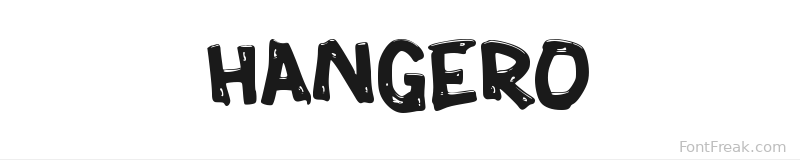
HANGERO
HANGERO by Wahyu Eka Prasetya is a striking display font that captures attention with its unique, playful style. This font falls under the decorative category, characterized by its bold, irregular strokes that create an energetic and lively feel. The letters are designed with a heavy stroke weight, offering a sense of depth and dimension, while the varied spacing adds to its dynamic appearance. The slightly distressed edges lend a handcrafted vibe, making HANGERO an excellent choice for designs that aim to evoke a sense of fun and creativity.
This versatile font is perfect for a variety of applications. It shines in settings such as wedding invitations, where its charming style can add a personal touch to the special day. Additionally, HANGERO is ideal for movie posters, attracting audiences with its boldness and unique character. Restaurant menus can also benefit from this font, bringing a casual and inviting atmosphere to the dining experience. Furthermore, it works wonderfully for promotional materials aimed at young audiences, such as flyers or social media graphics, where a lively and engaging presentation is key.
Targeting graphic designers, small business owners, and content creators, HANGERO offers a fresh option for those looking to make their projects stand out. Its freeware license ensures that it is accessible for all, allowing creativity to flow without the burden of licensing fees.
What sets HANGERO apart is its ability to blend playfulness with professionalism, making it suitable for both casual and formal contexts. Whether you’re designing a vibrant promotional campaign or a charming invitation, HANGERO font free download is a fantastic choice that will leave a lasting impression on your audience.